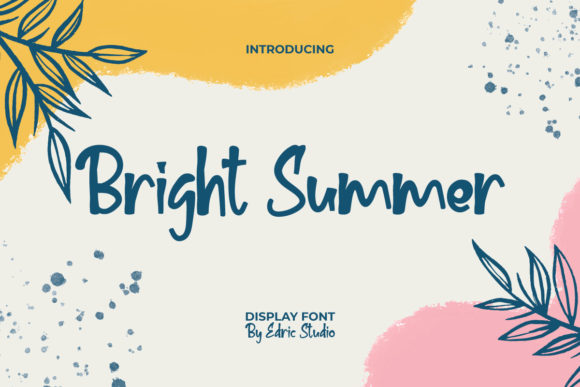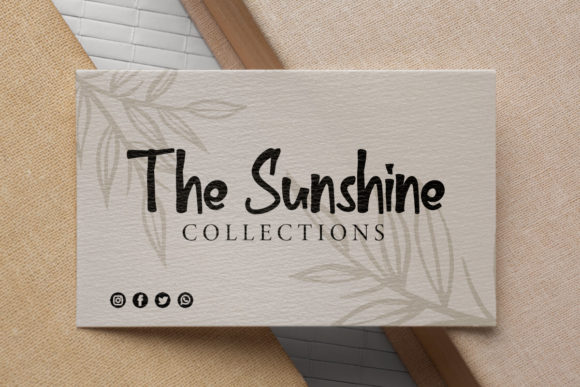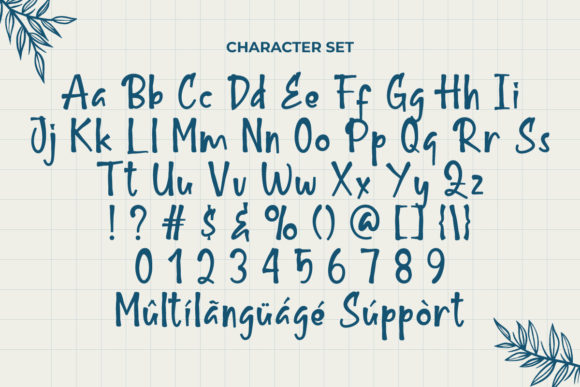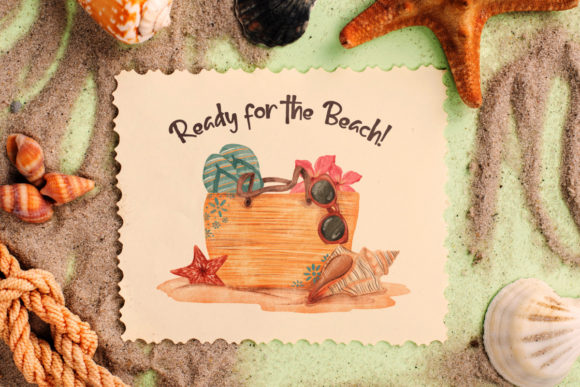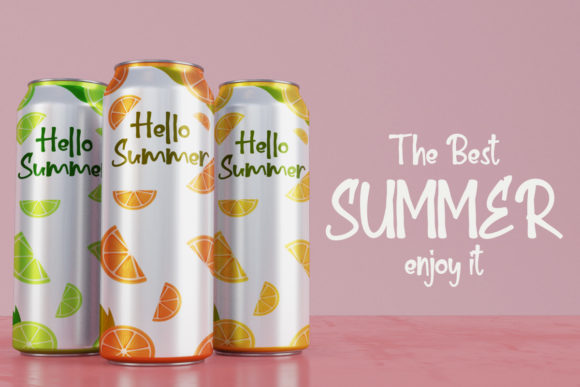
Bright Summer Font
About Bright Summer Font
Bright Summer feels incredibly elegant and flowing. It looks stunning on wedding invitations, thank you cards, quotes, greeting cards, logos, business cards and every other design which needs a handwritten touch.